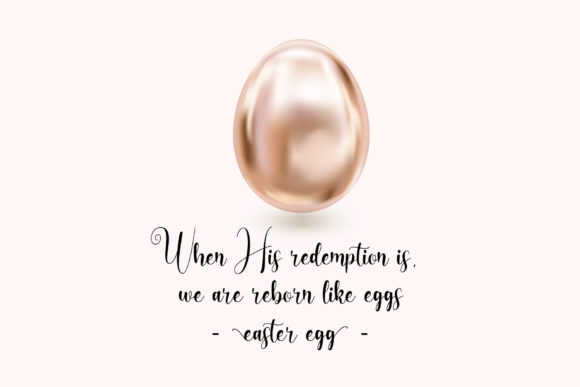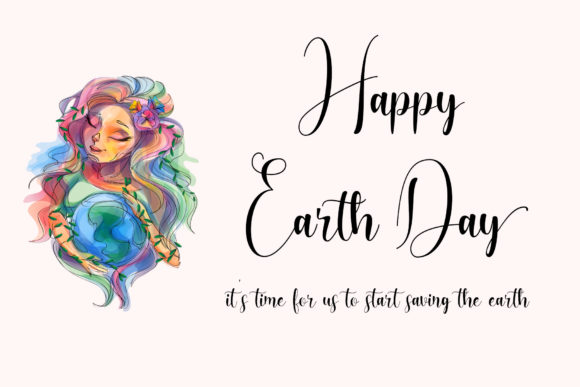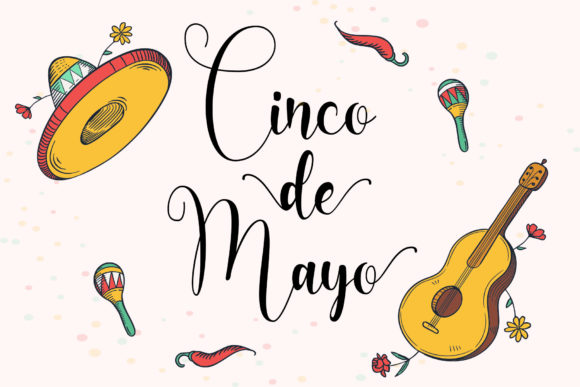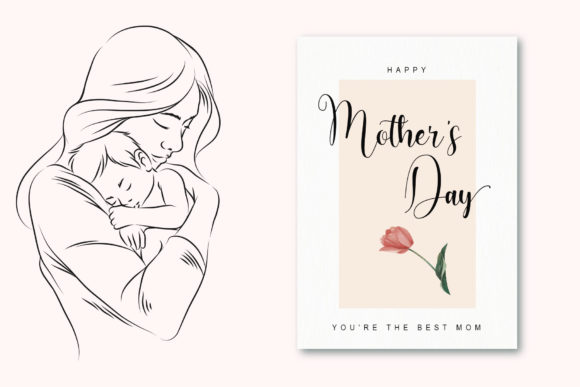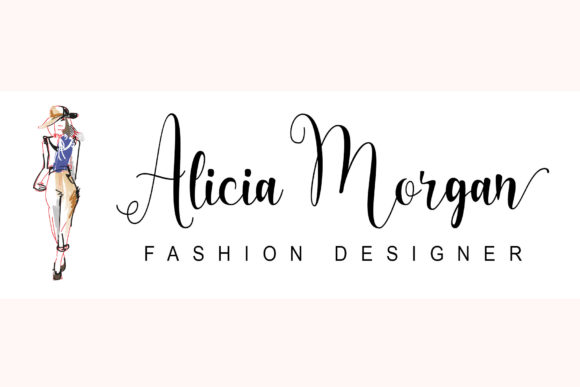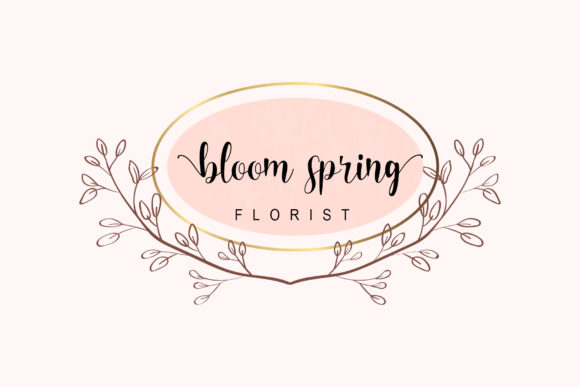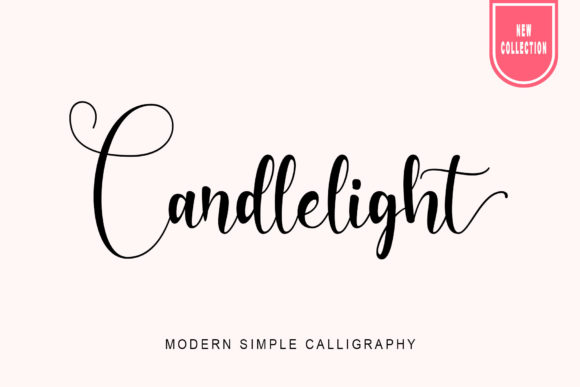
The Magic of Candlelight Font: A Designer’s Delight
I’ll never forget the time I was working on a wedding invitation project, and my client asked for a font that was “elegant, modern, and classy.” I scoured the internet, tried out dozens of fonts, but nothing seemed quite right. That was until I stumbled upon Candlelight Font. ✨ It was love at first sight! The beautiful, refined script font won my heart and my client’s approval. In this article, I’ll share with you why I’m obsessed with Candlelight Font and how you can make the most of it in your designs.
A Personal Review: What I Love About Candlelight Font
Candlelight Font is a stunning script font that exudes elegance and sophistication. Here are some things I love about it:
• ✨ Classy and modern look: Candlelight Font has a unique blend of classic and modern elements that make it perfect for a wide range of design projects.
• ✅ PUA encoded: The font is PUA encoded, which means you can access all the glyphs and swashes with ease, giving you endless creative possibilities.
• 💕 Perfect for wedding designs: The font’s elegant and refined look makes it ideal for wedding invitations, stationery, and other wedding-related designs.
• 📚 Versatile: Candlelight Font can be used for logos, branding, social media posts, and much more!
While Candlelight Font is an amazing font, there are a few things to keep in mind:
• 🤔 Learning curve: With so many glyphs and swashes available, it may take some time to get familiar with the font’s features.
• ⚠️ Not suitable for body text: Due to its script nature, Candlelight Font is best used for headlines, titles, and short paragraphs, rather than body text.
The Backstory of Candlelight Font
Candlelight Font was designed by a team of talented typographers who wanted to create a font that would evoke the warmth and elegance of candlelight. The font’s creator was inspired by the soft, golden glow of candlelight and the intricate details of traditional calligraphy. The result is a beautiful, refined script font that’s perfect for a wide range of design projects.
What is Candlelight Font? Candlelight Font is a beautiful, refined script font with a classy, elegant, and modern look.
Is Candlelight Font PUA encoded? Yes, Candlelight Font is PUA encoded, which means you can access all the glyphs and swashes with ease.